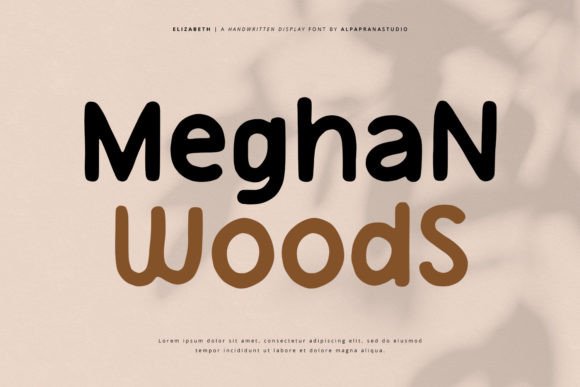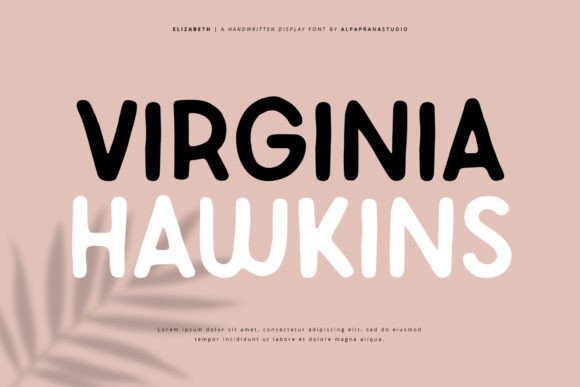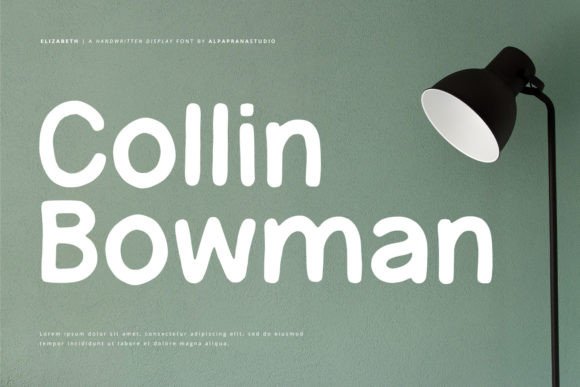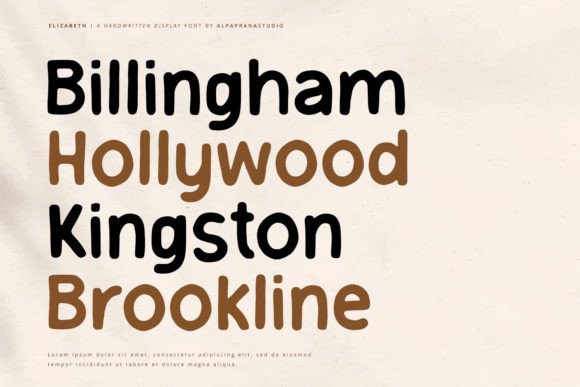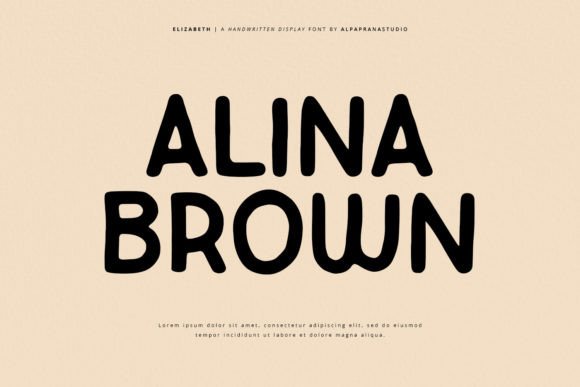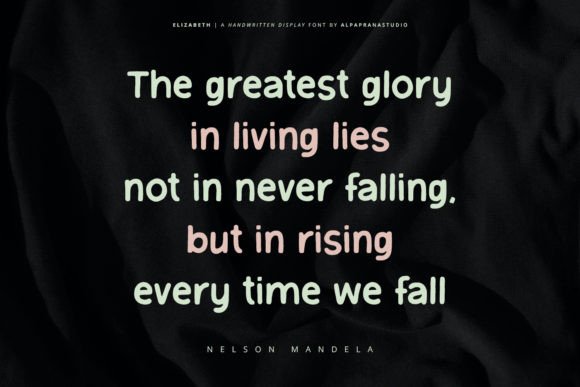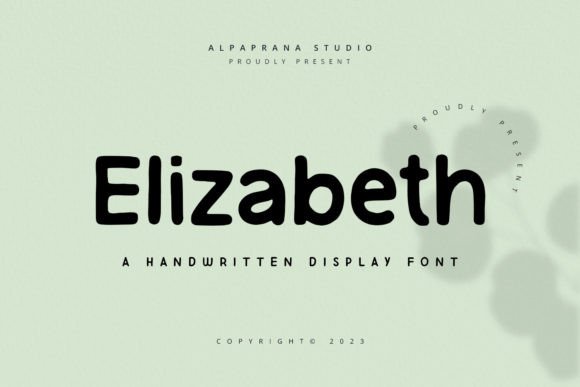
Introducing Elizabeth Font: A Timeless Classic for Designers and Crafters
Are you a designer or crafter looking for a font that exudes elegance, sophistication, and versatility? Look no further than Elizabeth Font, a classic and rounded sans serif font that is perfect for a wide range of design projects. In this article, we’ll explore the features and benefits of Elizabeth Font, and show you how to make the most of this beautiful font in your designs.
What is Elizabeth Font?
Elizabeth Font is a sans serif font that boasts a classic and rounded design. Its clean lines, smooth curves, and subtle rounded edges make it a perfect choice for designers and crafters who want to add a touch of sophistication to their work. Whether you’re creating a logo, headline, poster, quote, presentation, social media graphic, invitation, or business card, Elizabeth Font is an excellent choice.
Key Features of Elizabeth Font
- Classic and Timeless Design: Elizabeth Font features a classic and timeless design that never goes out of style. Its rounded edges and clean lines make it a versatile font that can be used in a wide range of design projects.
- Rounded Sans Serif: The font’s rounded sans serif design makes it perfect for designs that require a touch of elegance and sophistication.
- Highly Legible: Elizabeth Font is highly legible, even at small sizes, making it perfect for body text, captions, and other small text applications.
- Extensive Character Set: The font includes an extensive character set, including uppercase and lowercase letters, numbers, punctuation, and special characters.
Uses of Elizabeth Font
Elizabeth Font is a versatile font that can be used in a wide range of design projects, including:
- Logos: Create a professional and elegant logo for your business or brand with Elizabeth Font.
- Headlines: Use Elizabeth Font to create attention-grabbing headlines for your blog posts, articles, and social media graphics.
- Posters: Create eye-catching posters for events, promotions, and advertising campaigns with Elizabeth Font.
- Quotes: Use Elizabeth Font to create inspiring and motivational quotes for social media, blogs, and websites.
- Presentations: Add a touch of elegance to your presentations with Elizabeth Font.
- Social Media: Use Elizabeth Font to create engaging and professional social media graphics, including Facebook posts, Twitter headers, and Instagram stories.
- Invitations: Create beautiful and elegant invitations for weddings, parties, and other events with Elizabeth Font.
- Business Cards: Use Elizabeth Font to create professional and stylish business cards that make a great impression.
Tips for Using Elizabeth Font
Here are some tips for getting the most out of Elizabeth Font:
- Pair with Other Fonts: Elizabeth Font pairs well with other fonts, including serif fonts, script fonts, and bold sans serif fonts. Experiment with different font combinations to create unique and interesting designs.
- Experiment with Colors: Elizabeth Font looks great in a wide range of colors, from bold and bright to soft and pastel. Experiment with different colors to find the perfect look for your design.
- Use Different Sizes: Elizabeth Font is highly legible at a wide range of sizes, from small captions to large headlines. Experiment with different sizes to create visual interest and hierarchy in your designs.
Elizabeth Font is a classic and versatile font that is perfect for designers and crafters who want to add a touch of elegance and sophistication to their work. With its rounded sans serif design, extensive character set, and high legibility, Elizabeth Font is an excellent choice for a wide range of design projects. Whether you’re creating a logo, headline, poster, quote, presentation, social media graphic, invitation, or business card, Elizabeth Font is a great choice. So why wait? Download Elizabeth Font today and start creating beautiful and professional designs!